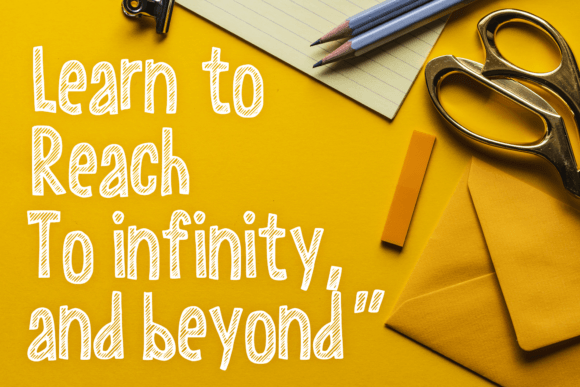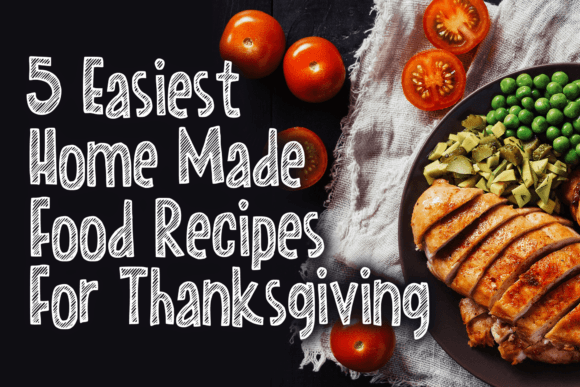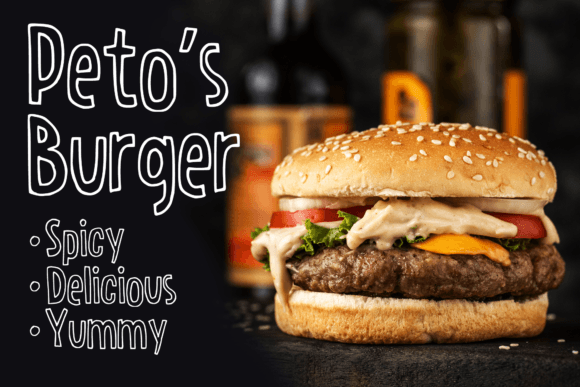
Introduction to Sketchino Font
Have you ever stumbled upon a design that instantly catches your eye, and you wonder what makes it so special? For me, it’s the unique combination of style and personality that sets a design apart from the rest. The Sketchino Font is one of those game-changers, a high-quality, hand-drawn font that’s perfect for adding a touch of whimsy to any creative project.
With its transparent background and free download availability, the Sketchino Font is an invaluable design resource for designers of all levels. Whether you’re working on a t-shirt design, a restaurant menu, or a blog post, this font is sure to bring a playful touch to your work. And the best part? It’s easy to use and customize to fit your unique style.
So, if you’re looking for a font that’s sure to make your designs stand out, look no further than the Sketchino Font. With its cool and playful vibe, it’s the perfect addition to any creative project.
Key Features of Sketchino Font
- High-quality, professional design for creative projects, ideal for graphic designers and artists.
- Features a transparent background, allowing for effortless customization and blending with other design elements.
- Unique, handcrafted style that adds a touch of personality to any creative project, setting it apart from standard fonts.
- Perfect for use in a variety of design contexts, including logos, branding materials, and digital art.
Honest Review: Sketchino Font
As a designer, I’m always on the lookout for high-quality design resources to elevate my creative projects. Recently, I came across the Sketchino Font, and I’m excited to share my honest review with you.
- ✨ High-quality design: The Sketchino Font boasts crisp, clean lines and a professional look that’s perfect for a variety of creative projects.
- ✨ Transparent background: The font’s transparent background makes it easy to overlay on images or other design elements, giving you a seamless and polished look.
- ⚠️ Limited font styles: While the Sketchino Font is high-quality, it’s a bit limited in terms of font styles – I’d love to see more options in the future.
- ⚠️ Not suitable for all designs: While the font is versatile, it may not be the best choice for certain design projects – such as titles or headings that require a lot of emphasis.
Overall, I’m impressed with the Sketchino Font’s quality and versatility. While it may have some limitations, it’s a great resource for designers who want a high-quality, free font for their creative projects.
Sketchino Font: Unlocking Creativity in Your Design Projects
Tips for Getting the Most Out of Sketchino Font
Experiment with different font sizes, colors, and styles to create unique designs. Use it in combination with other design elements to add depth and visual interest to your projects.
Use the Sketchino Font in a variety of creative projects, such as logos, business cards, brochures, social media graphics, and presentations. Its versatility makes it an ideal design resource for any project.